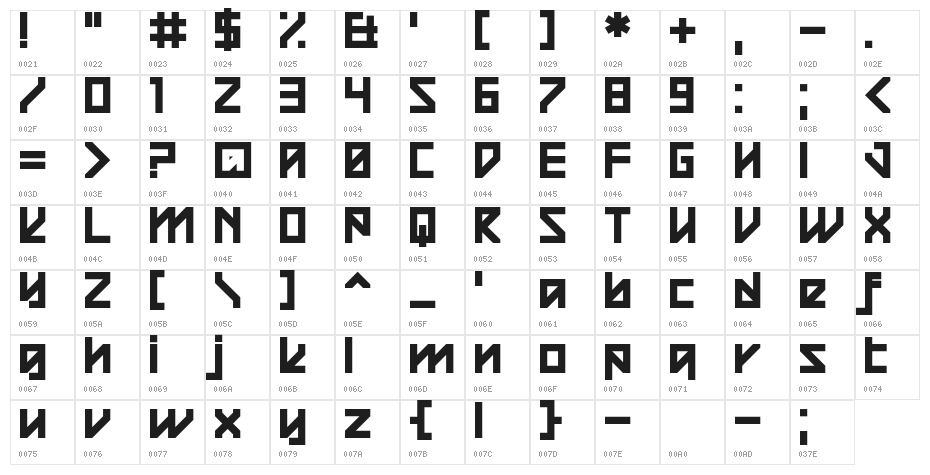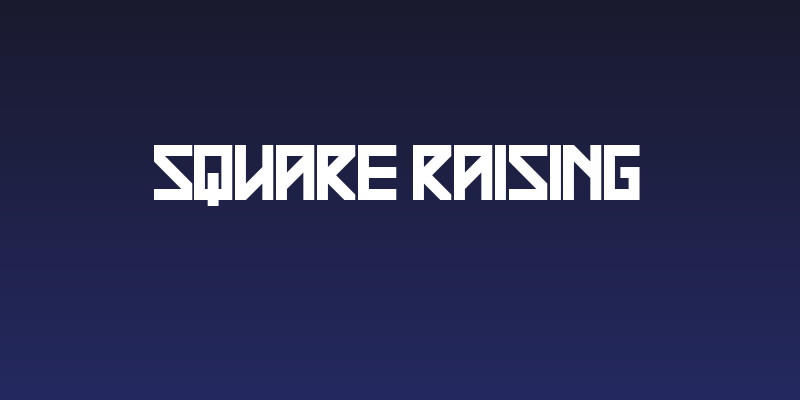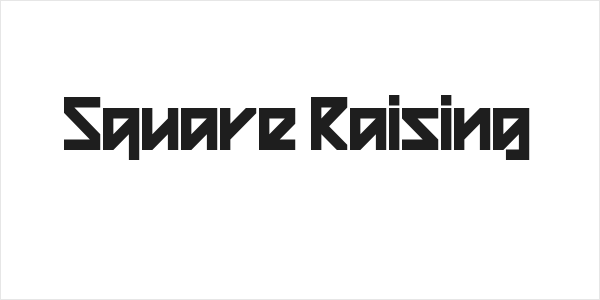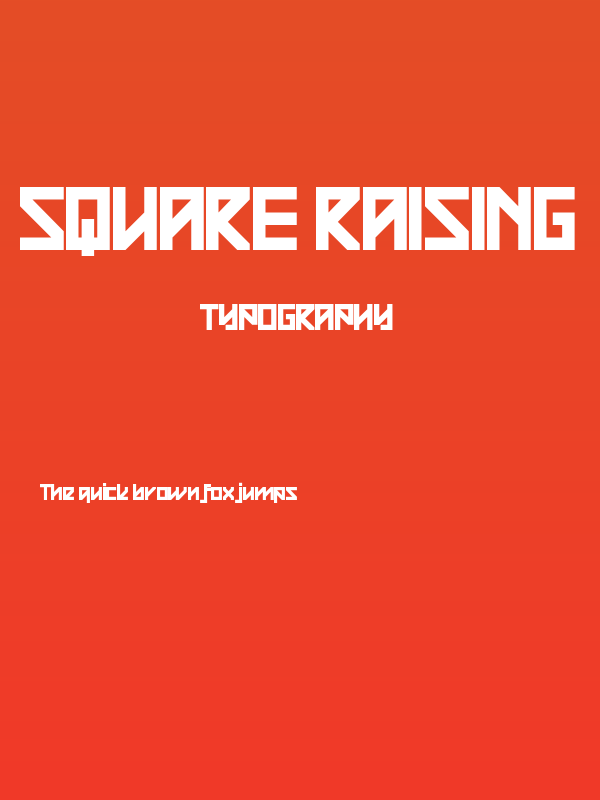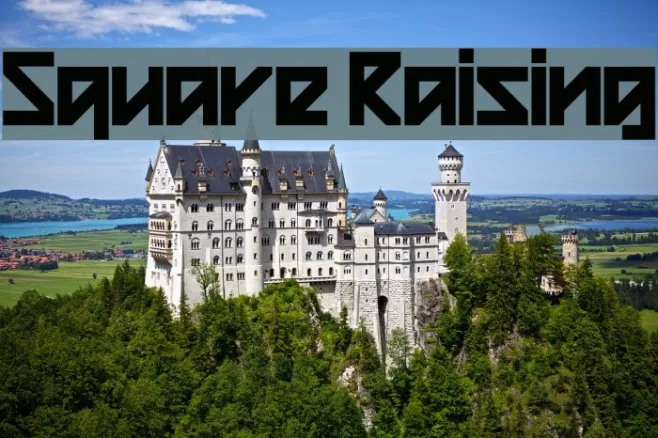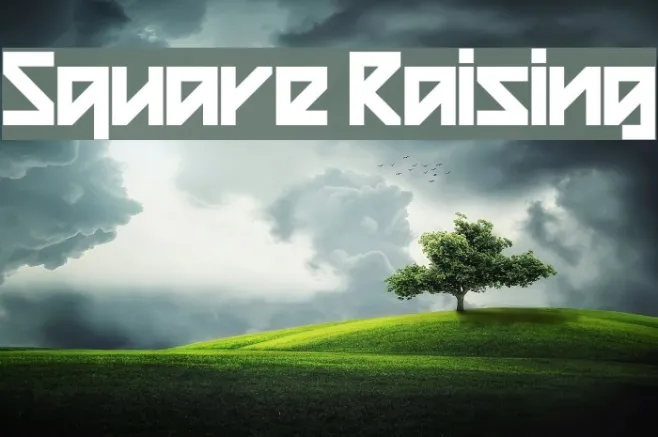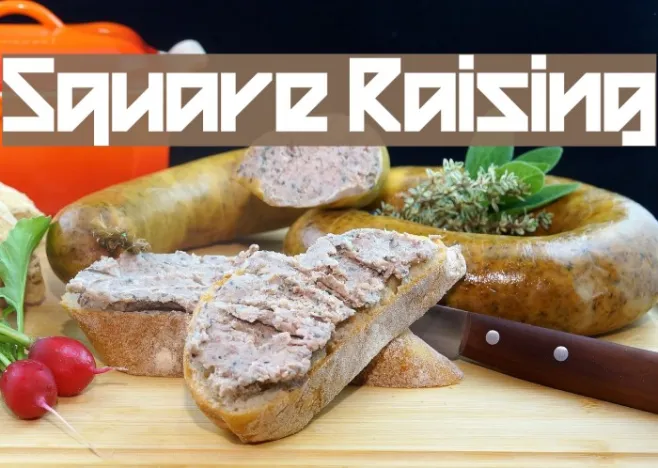
Square Raising Font
Square Raising Description
This font features a bold, geometric design with a strong emphasis on angular shapes and straight lines. Each character is constructed using a series of squares and rectangles, giving it a blocky and futuristic appearance. The uppercase and lowercase letters maintain a consistent height, creating a uniform look across the alphabet. The numerals and special characters follow the same geometric style, ensuring visual harmony throughout. This font's distinct, edgy style makes it stand out, ideal for projects that require a modern and impactful aesthetic.